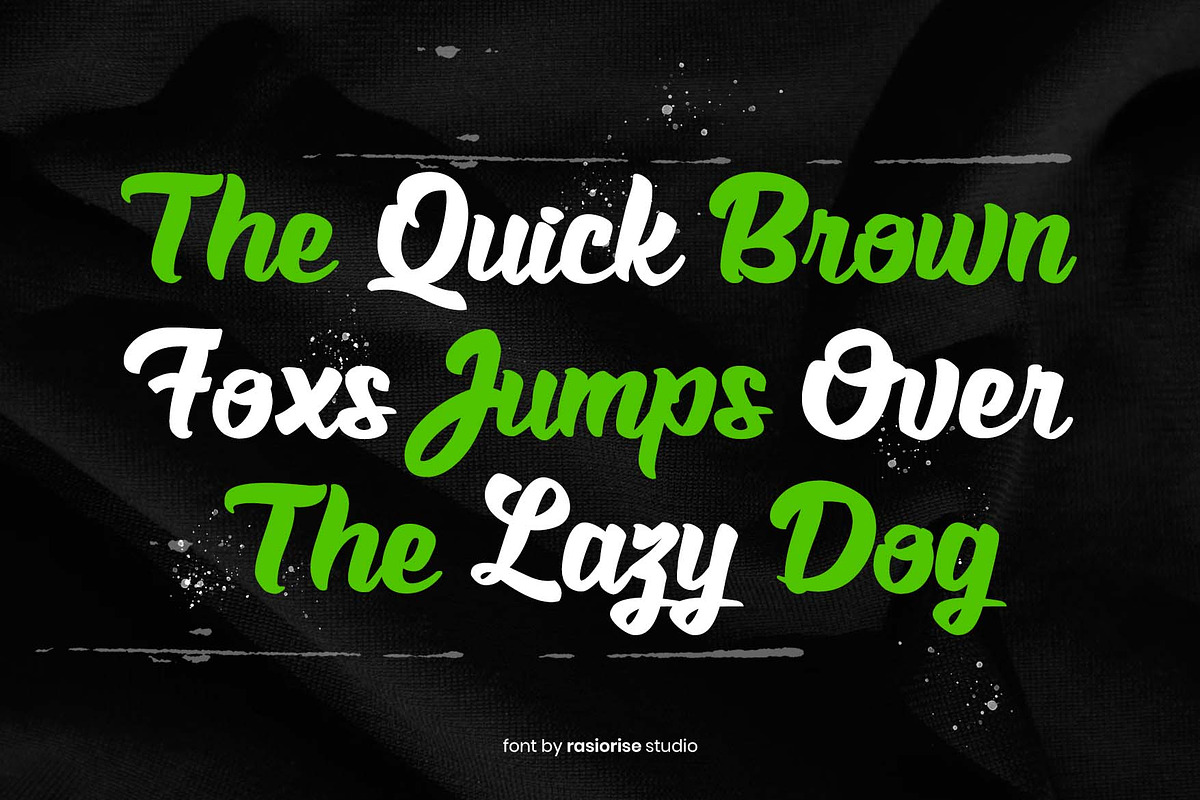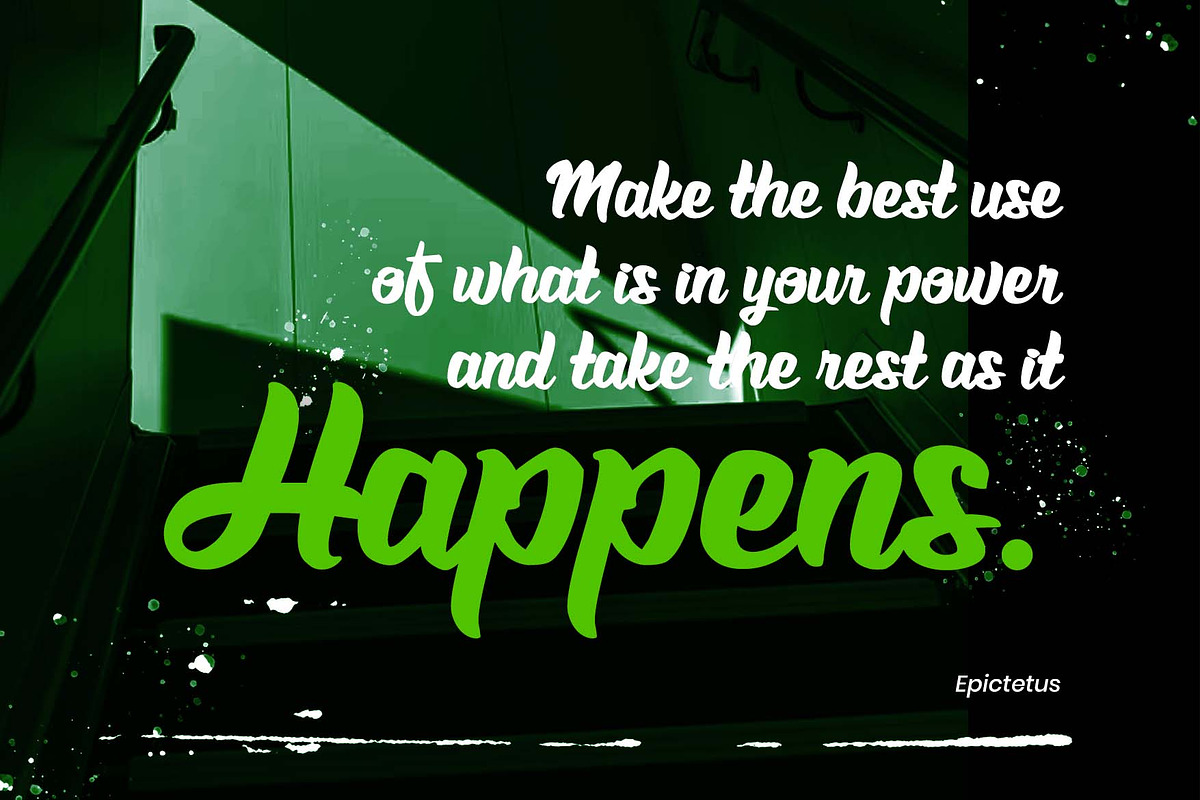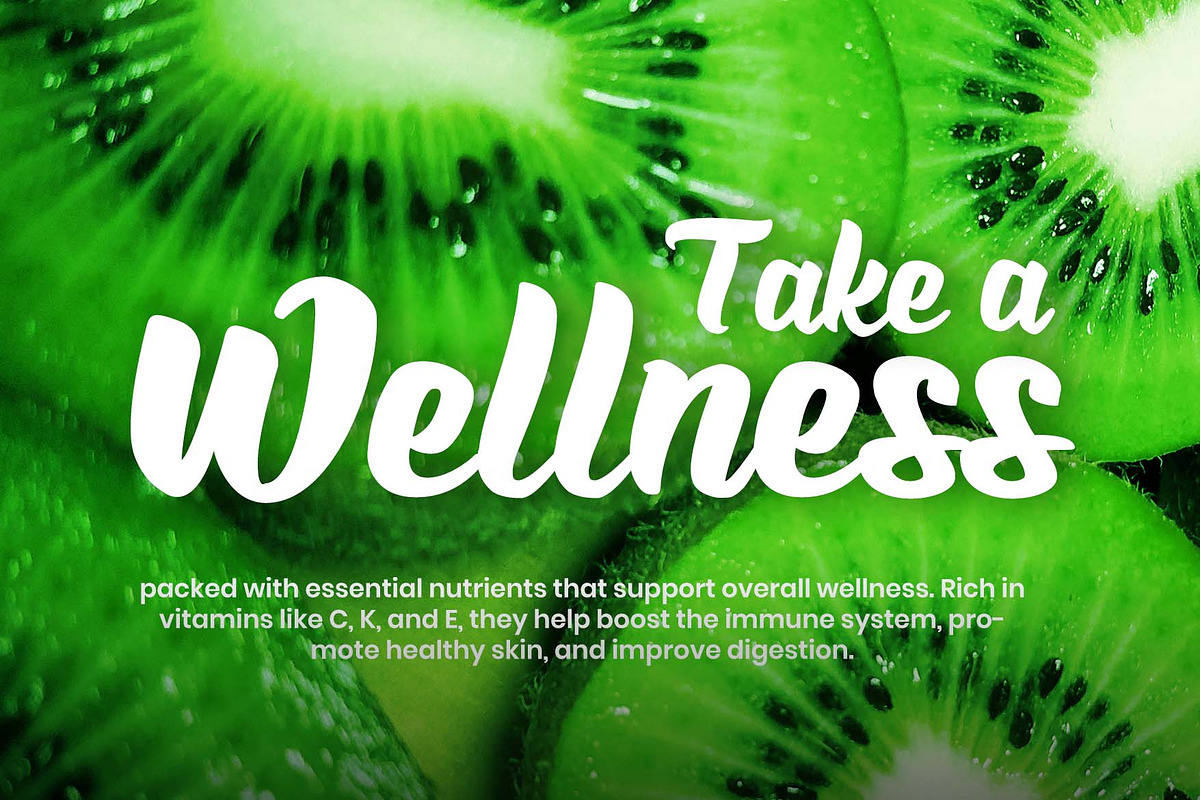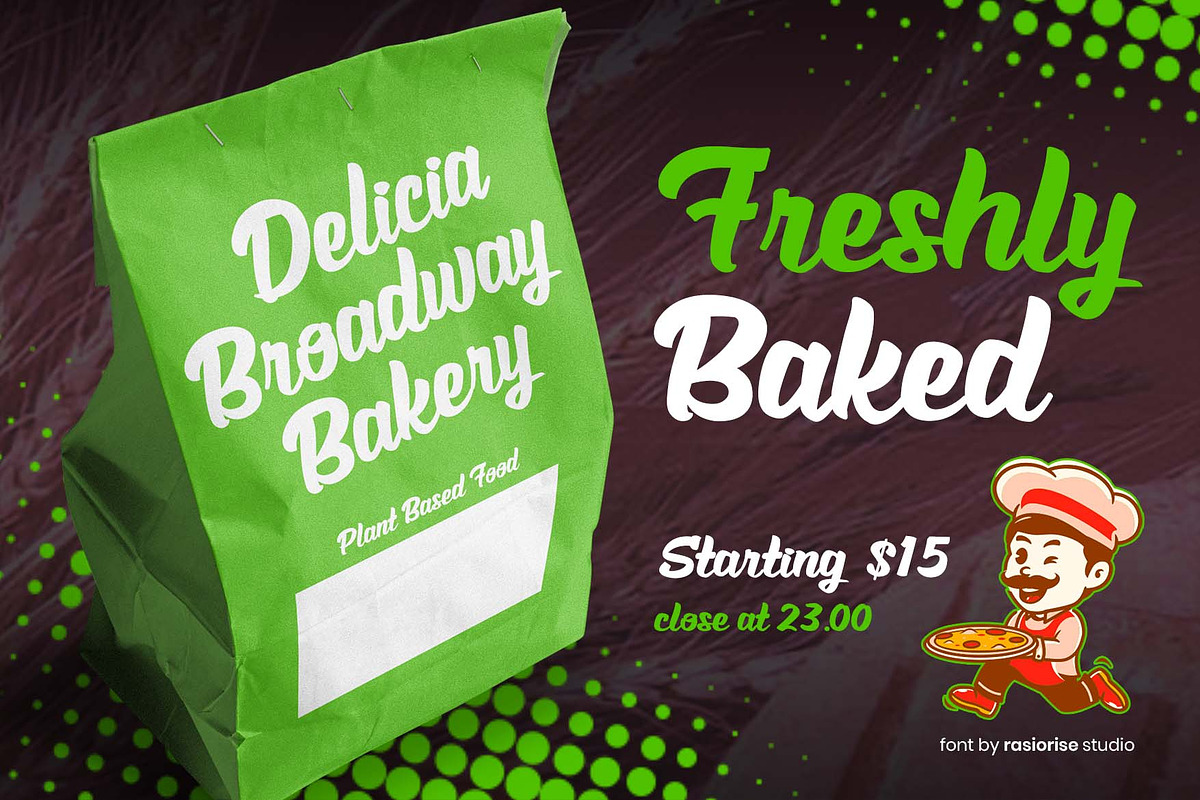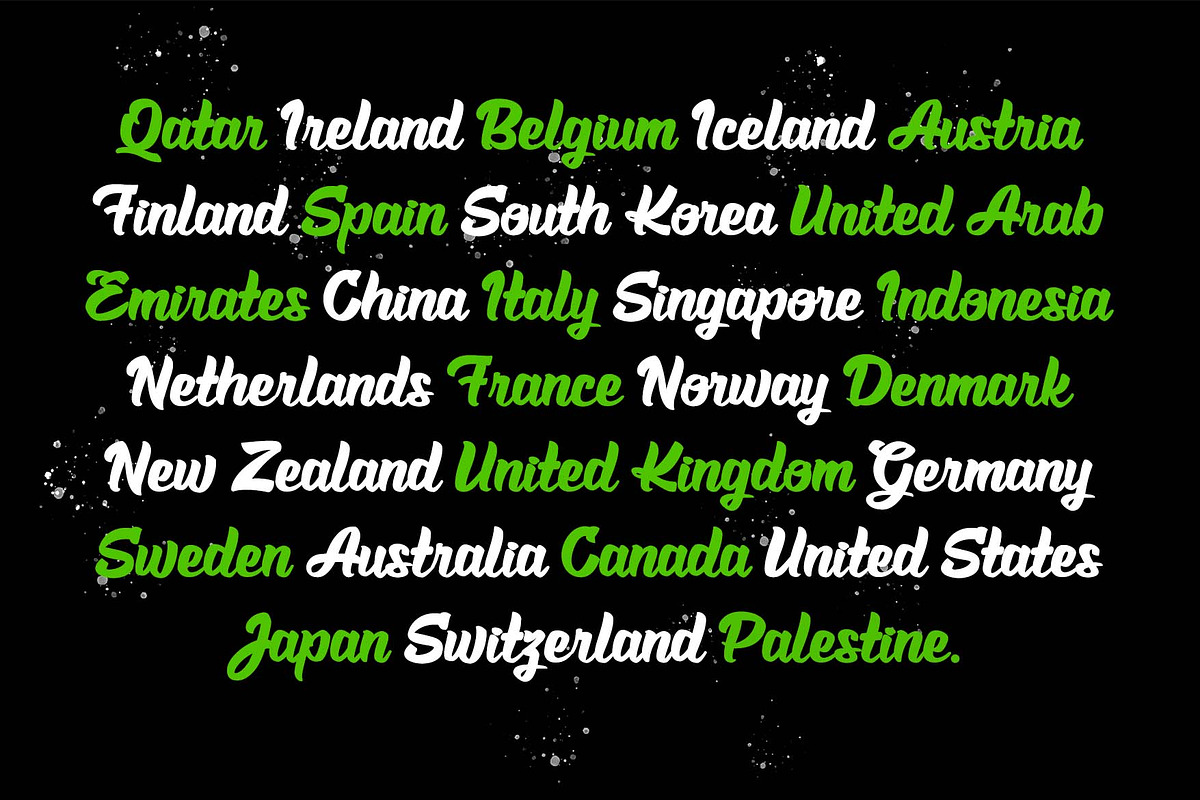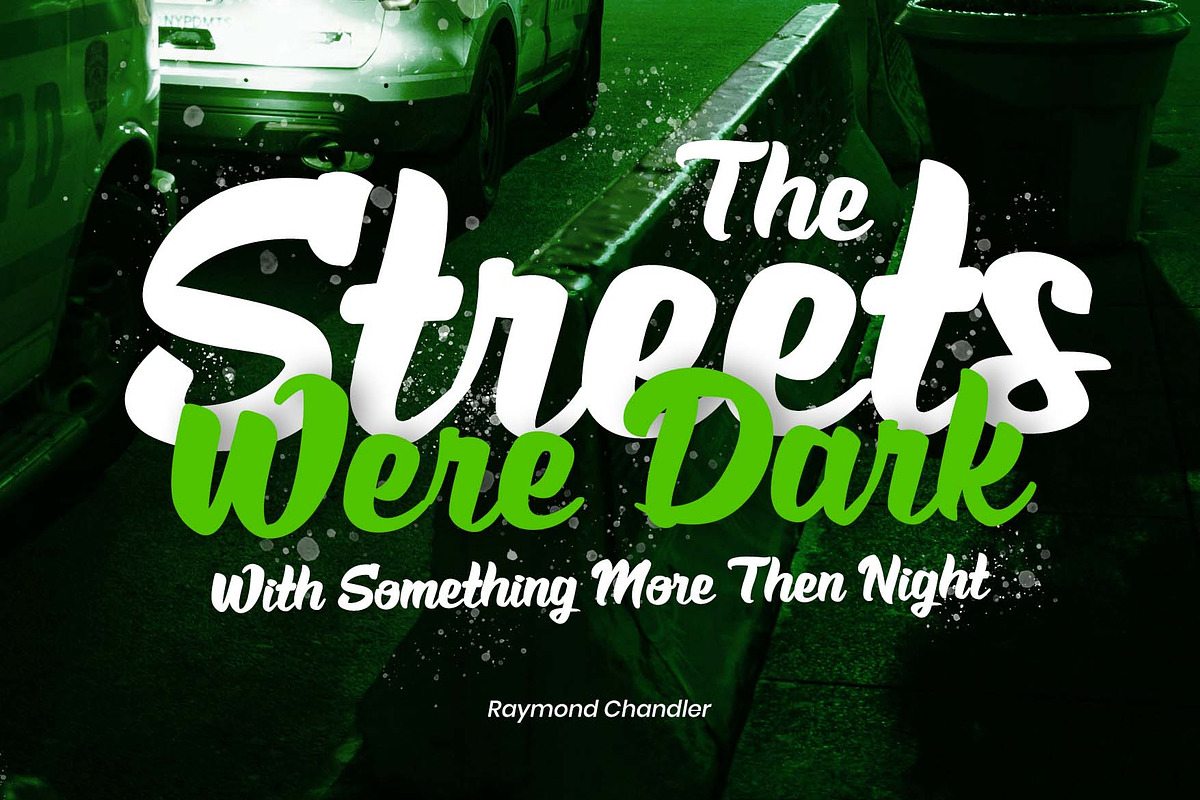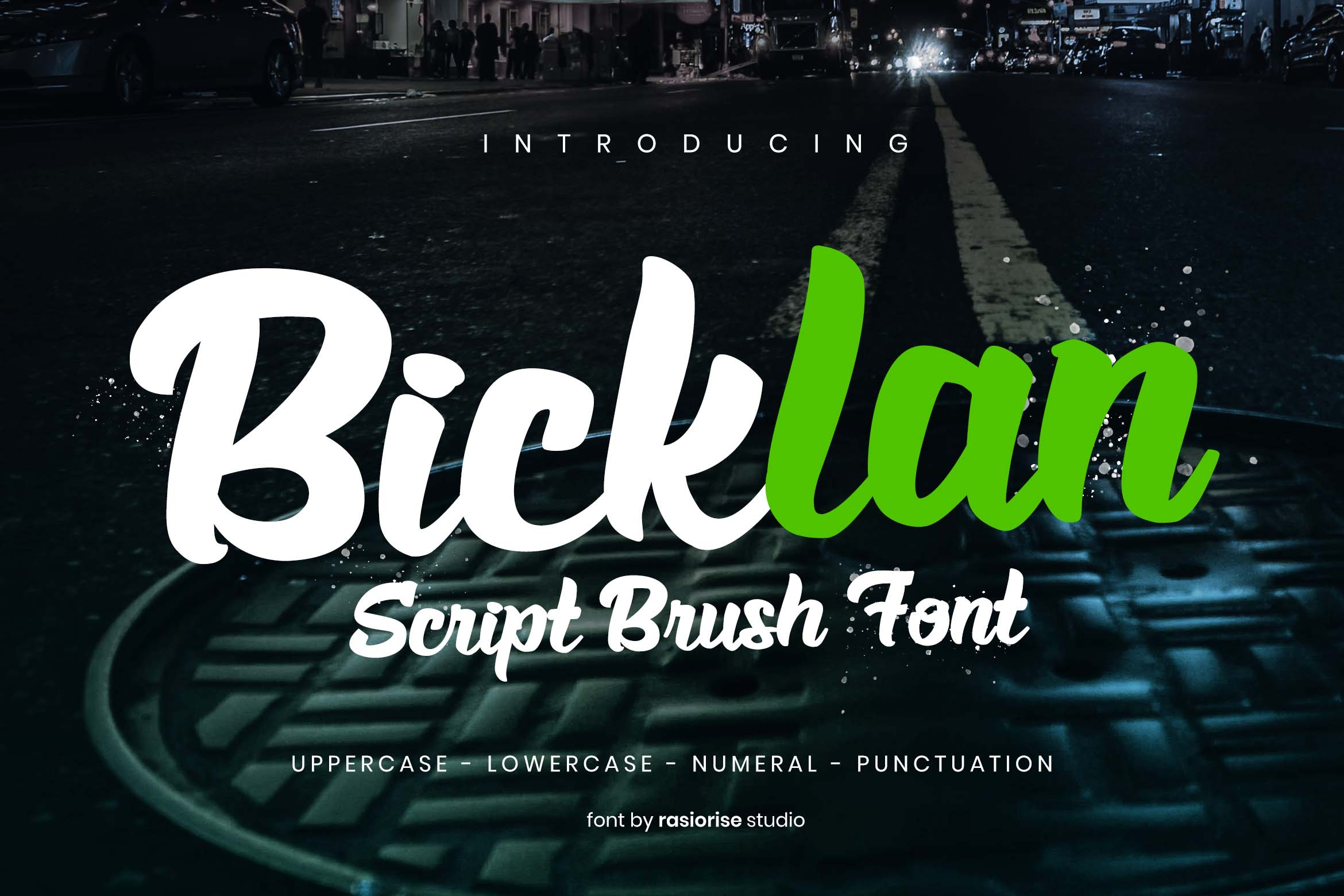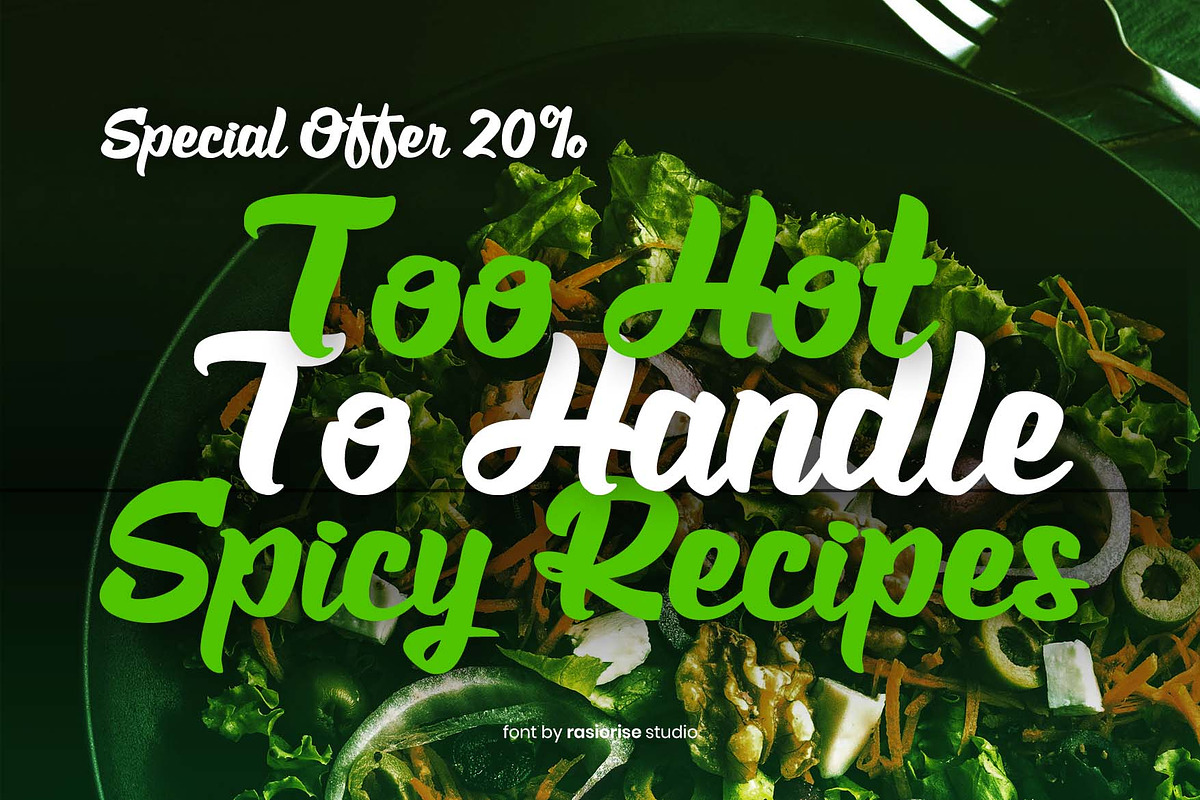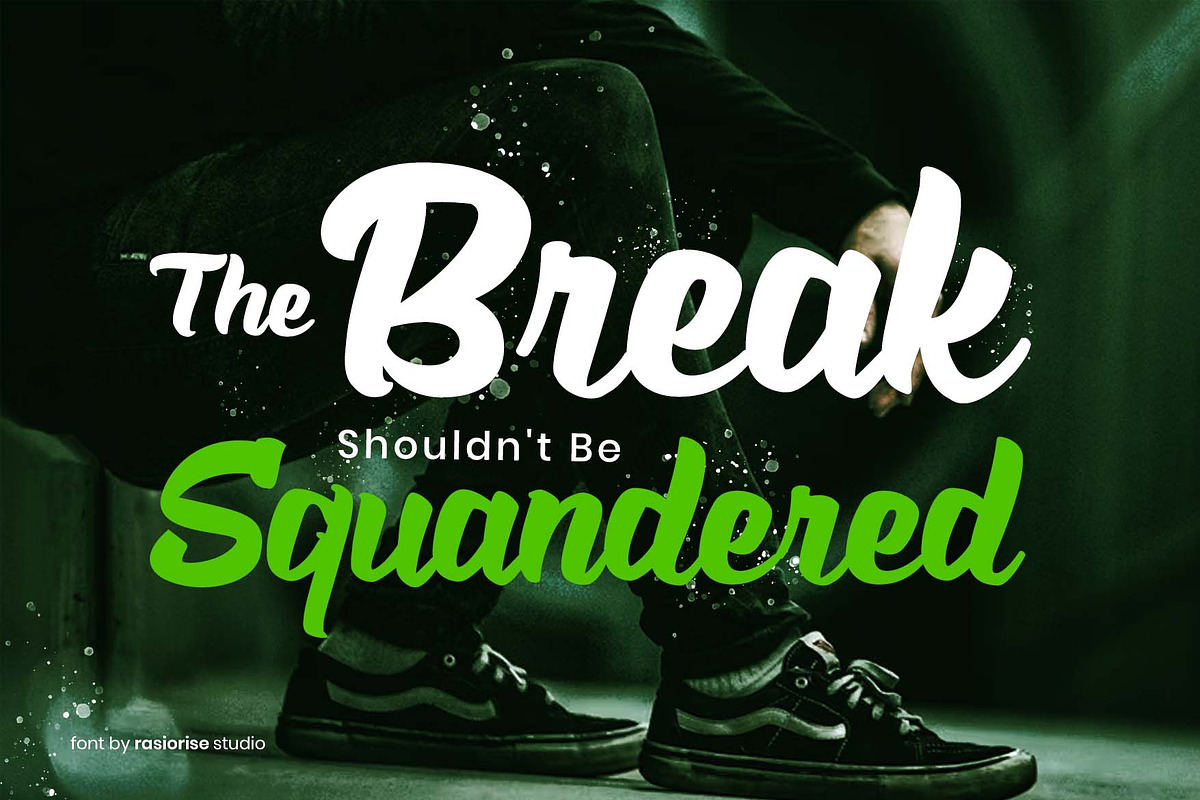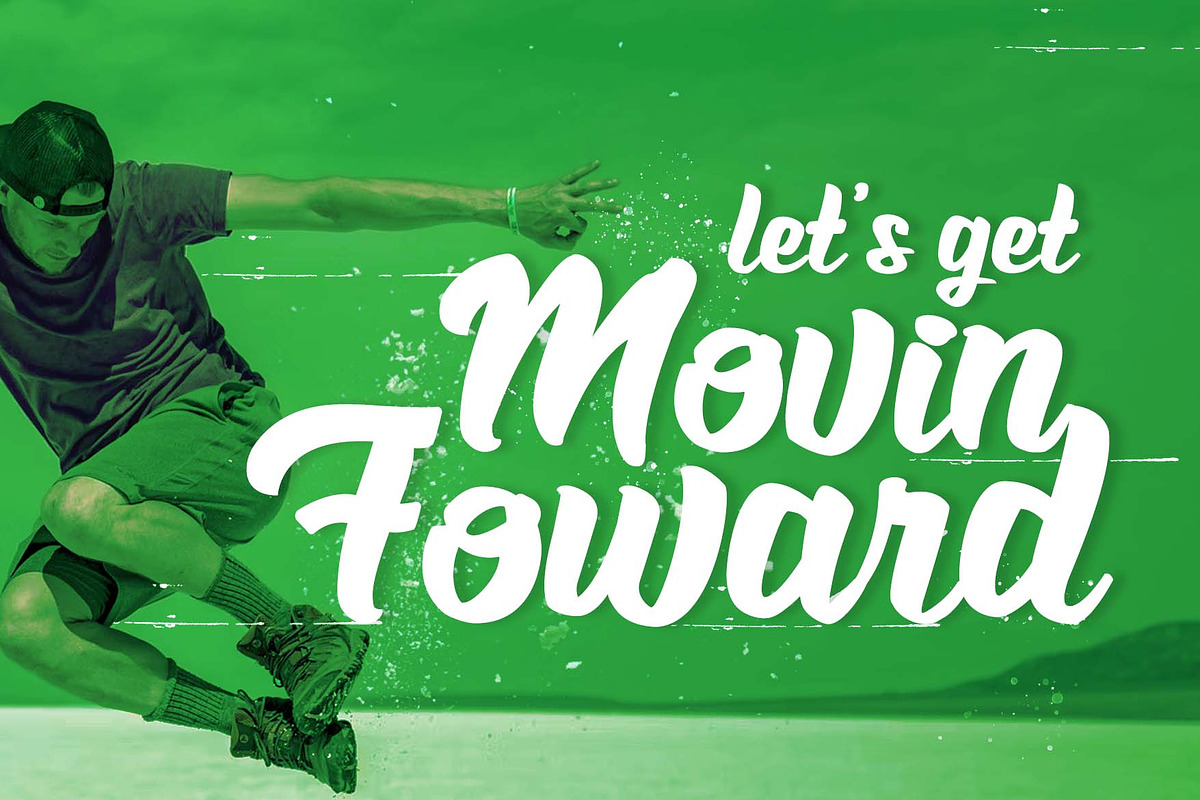
Bicklan a Script Brush Font
Hello Everyone! Bicklan has been released for those of you who are looking for a Handwritten Script Brush style font, The font is inspired by the script handwritten Brush Style with a few combine to turn them into a bit of a signature style. Unleash your great creativity with Bicklan - Handwritten Script Font, perfect for used to any projects also easy-to-read character font for your great project!.
Bicklan Font very suitable for Logotype, Book Cover, Weeding Invitation, Gift Card, Gretting Card, Poster, Merchandise, Packaging Label, Badge/Emblem Logo and much more.klan